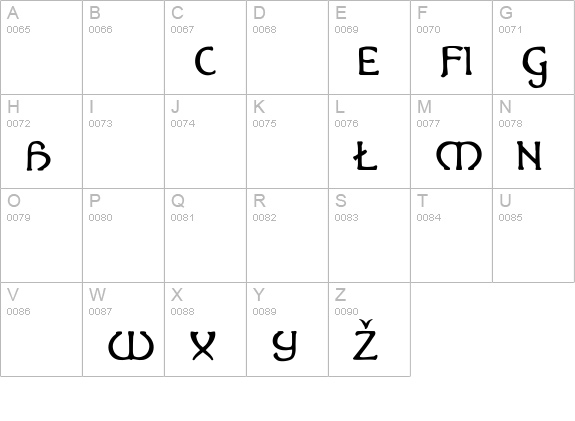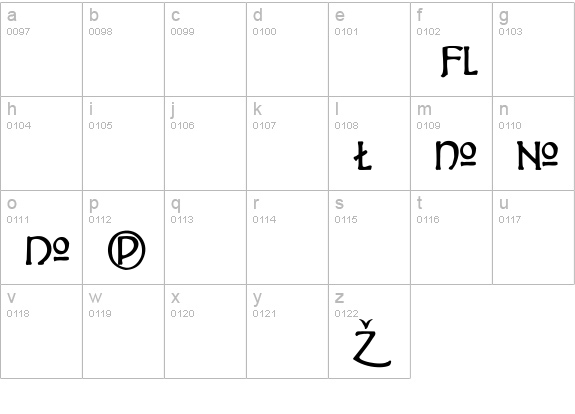
Hadley Alts Font Details
Introducing Hadley Alts, an exquisite font that effortlessly combines elegance and versatility. With its sleek lines and modern aesthetic, Hadley Alts is perfect for adding a touch of sophistication to any design project. Whether you're working on a logo, a branding campaign, or even a wedding invitation, this font is sure to make a lasting impression. Hadley Alts is meticulously designed to capture attention and evoke emotion. Its refined letterforms and delicate curves create a sense of refinement and grace, while its bold strokes add a touch of confidence and strength. This font is truly a masterpiece, crafted with utmost care and attention to detail. But what sets Hadley Alts apart is that it is not only beautiful, but also free. That's right, this stunning font is freely available to download at FontsMarket.com. Now, you can elevate your designs without breaking the bank. Whether you're a professional designer or a hobbyist, Hadley Alts offers you the opportunity to create stunning visuals without any financial constraints. With its wide range of weights and styles, Hadley Alts allows you to explore endless possibilities. Whether you prefer a bold and impactful look or a more subtle and refined approach, this font has got you covered. Its versatility ensures that it can be used across various design projects, from print to digital, making it an invaluable asset in your creative arsenal. So why wait? Download Hadley Alts today and unlock the power of this exceptional font. Transform your designs into works of art that captivate and inspire. Whether you're designing for business or pleasure, Hadley Alts is the perfect choice for those who appreciate beauty, quality, and the freedom to create without limitations. Get your hands on this remarkable font now, exclusively at FontsMarket.com.